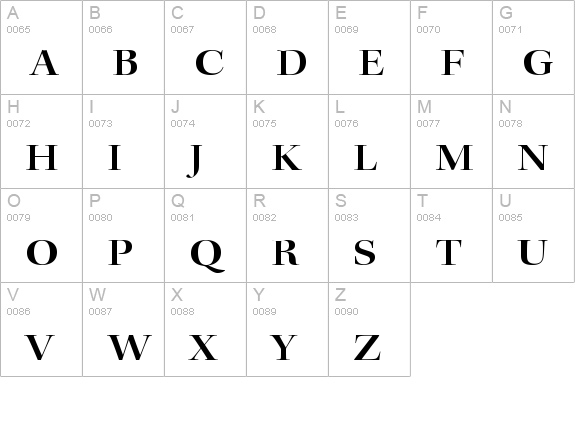
Kepler Std Semibold Extended Display Font Details
Kepler Std Semibold Extended Display is a sub-bold, structured, extended-width variant in the Kepler typeface family \xE2\x80\x94 well suited to sub-headlines and emphasised passages.
Kepler Std Semibold Extended Display font is a striking and versatile typeface that effortlessly captures attention with its bold and commanding presence. Designed with precision and meticulous attention to detail, this font exudes an air of confidence and sophistication, making it perfect for headlines, titles, and large-scale designs. Featuring a generous extended width, Kepler Std Semibold Extended Display font stands out from the crowd, offering ample space for each character to shine. Its semibold weight adds a touch of strength and power, ensuring that your message is delivered with impact and authority. With its clean and modern lines, this font is incredibly legible even at small sizes, making it a valuable asset for various design projects. Whether you're working on branding, packaging, editorial layouts, or advertising, Kepler Std Semibold Extended Display font will effortlessly elevate your designs to new heights. And the best part? This amazing font is freely available to download at FontsMarket.com. That's right, you can now enjoy the versatility and impact of Kepler Std Semibold Extended Display font without breaking the bank. Simply head over to FontsMarket.com and unlock the potential of this incredible typeface for your next creative endeavor. Don't miss out on the opportunity to make a lasting impression with Kepler Std Semibold Extended Display font. Download it for free today and unleash the power of typography in your designs.